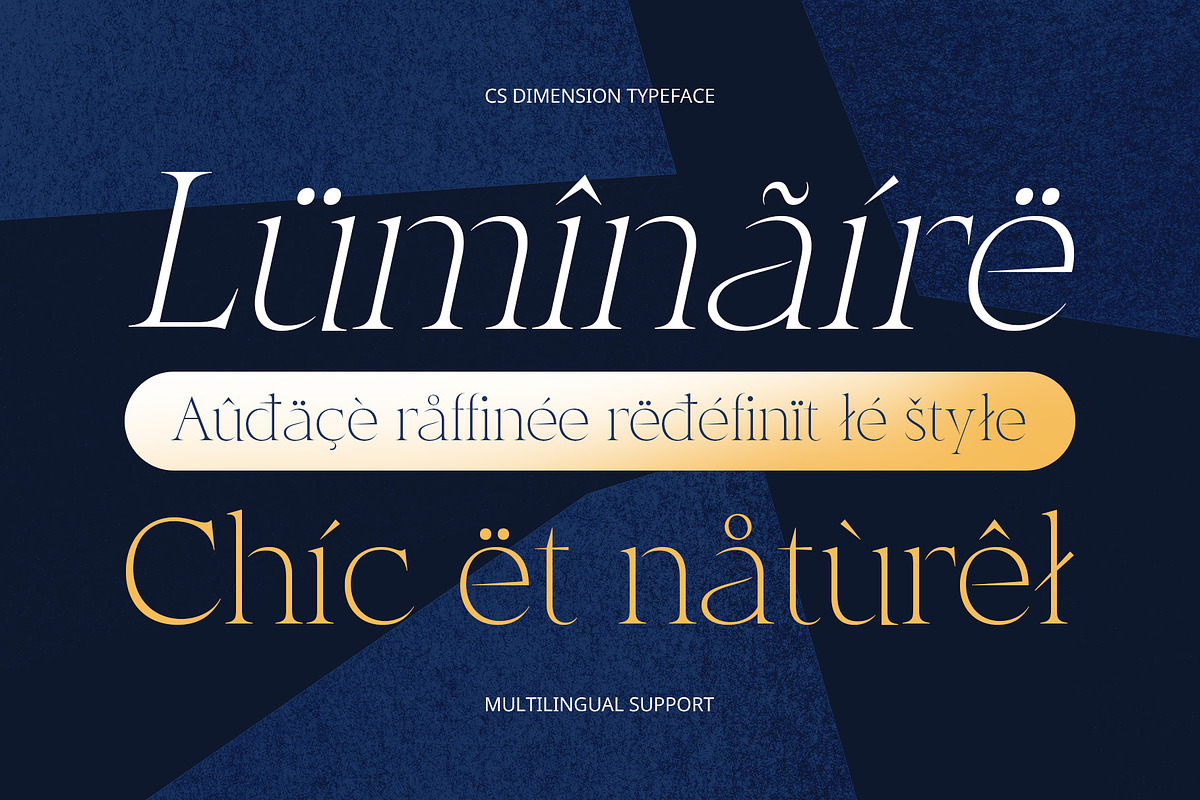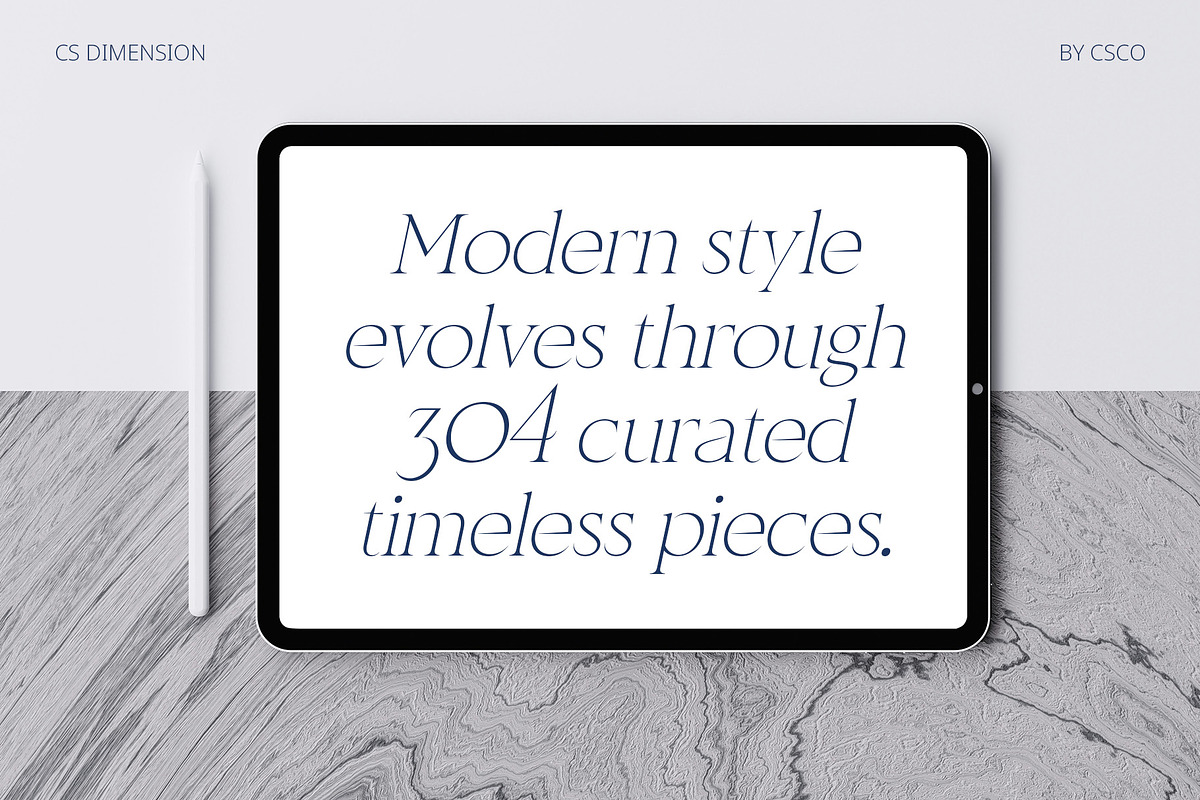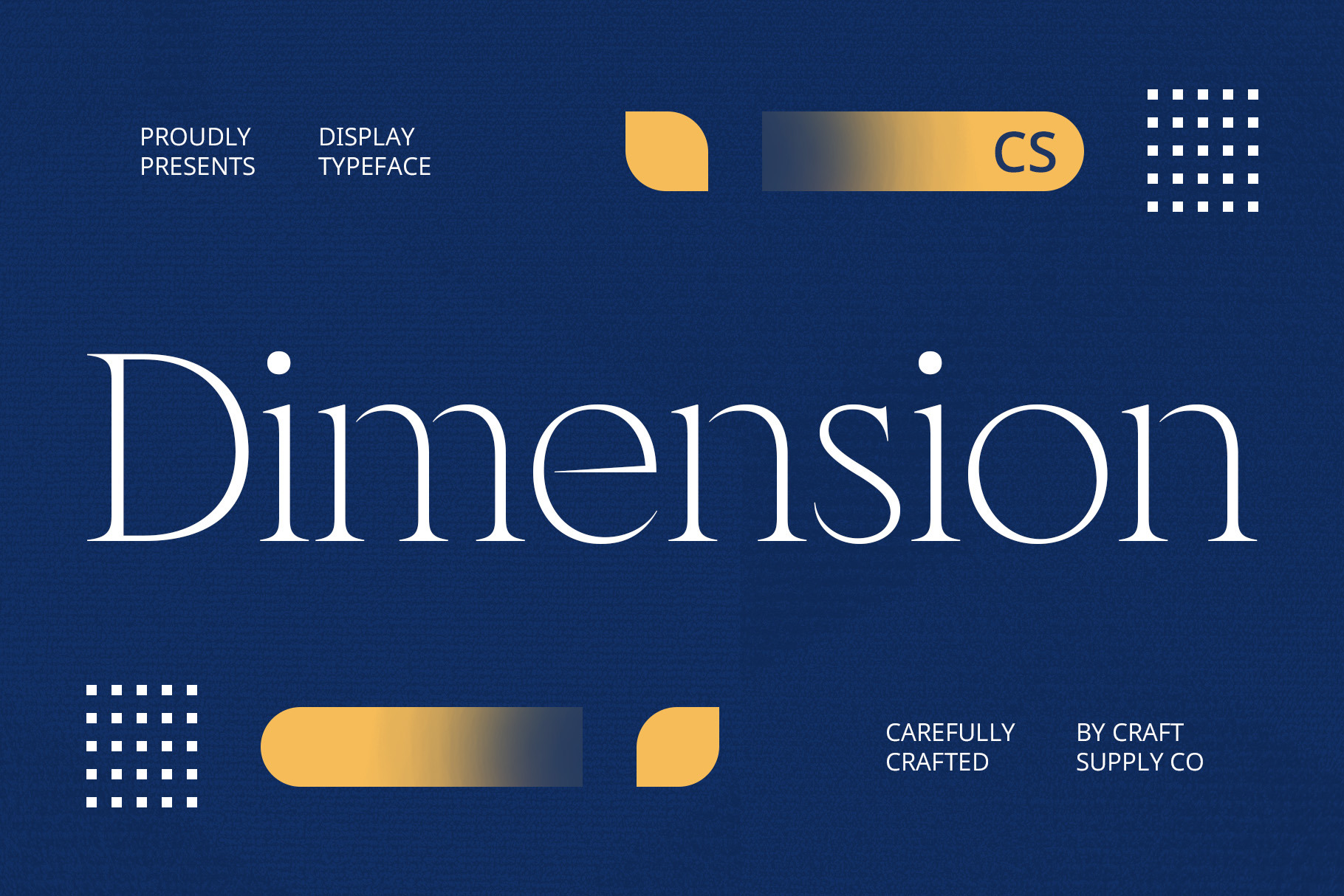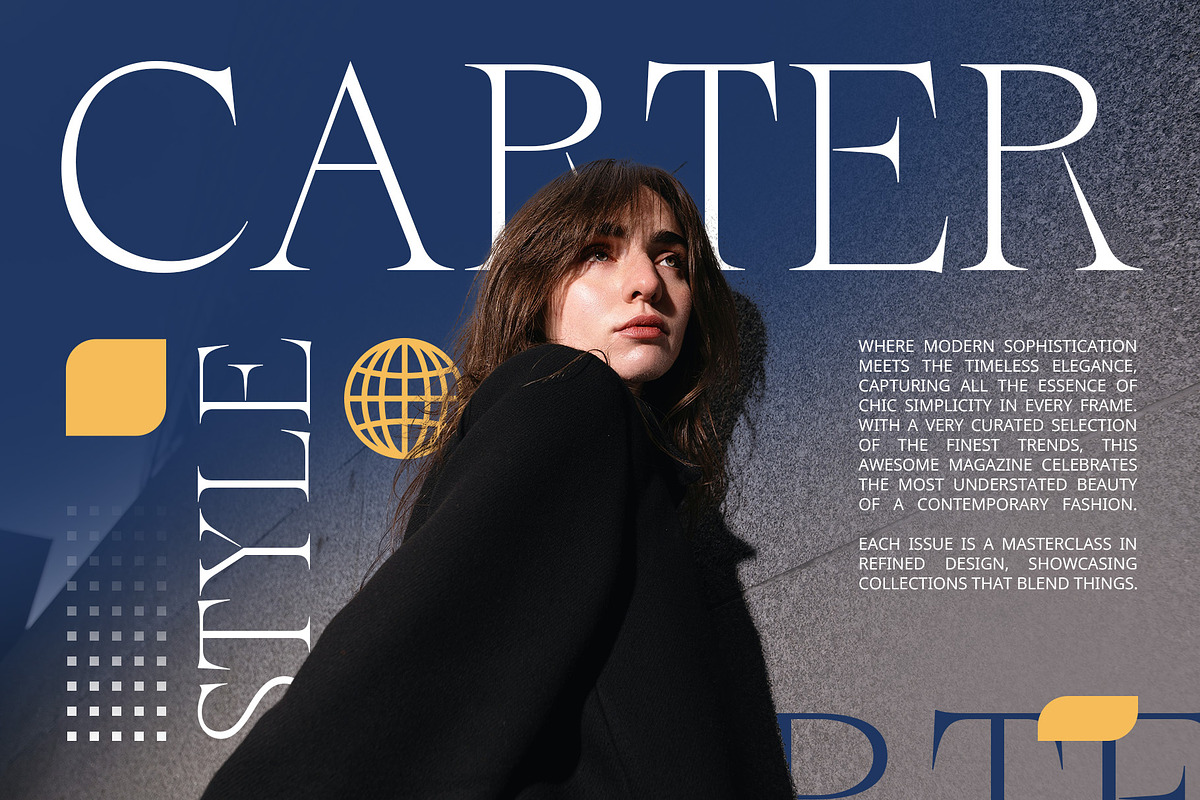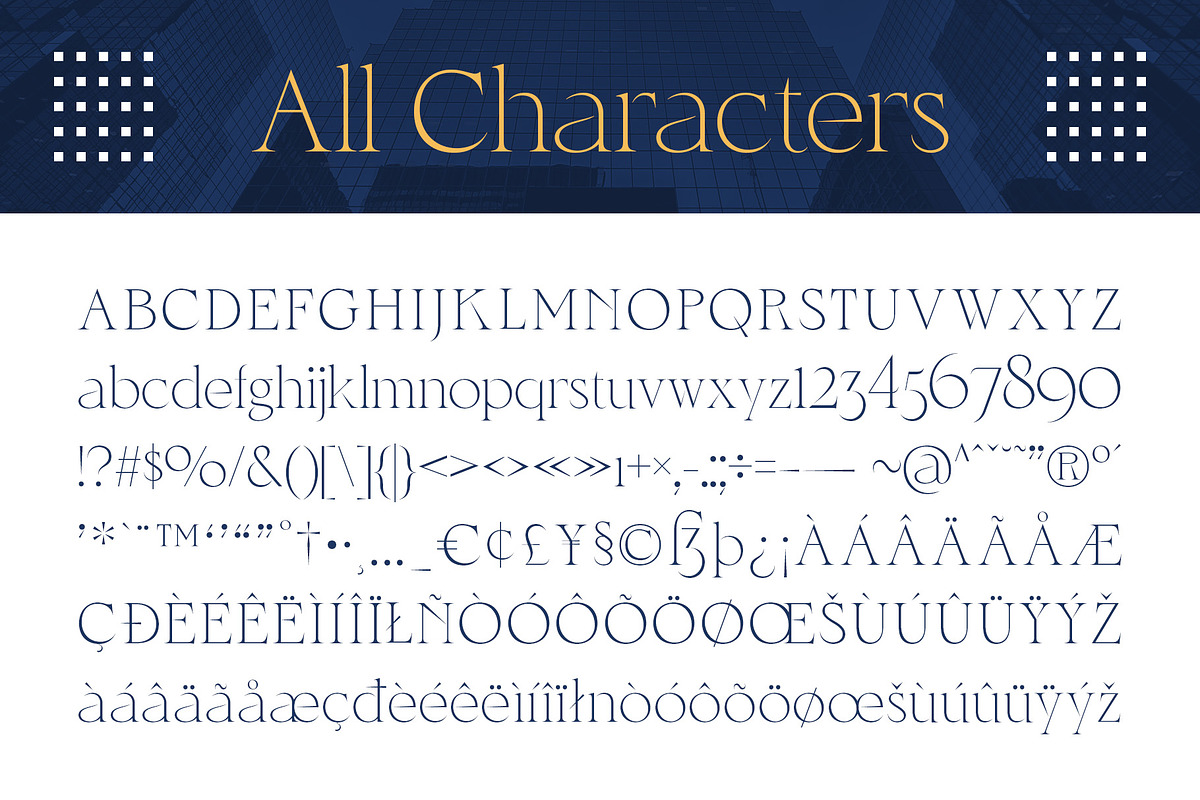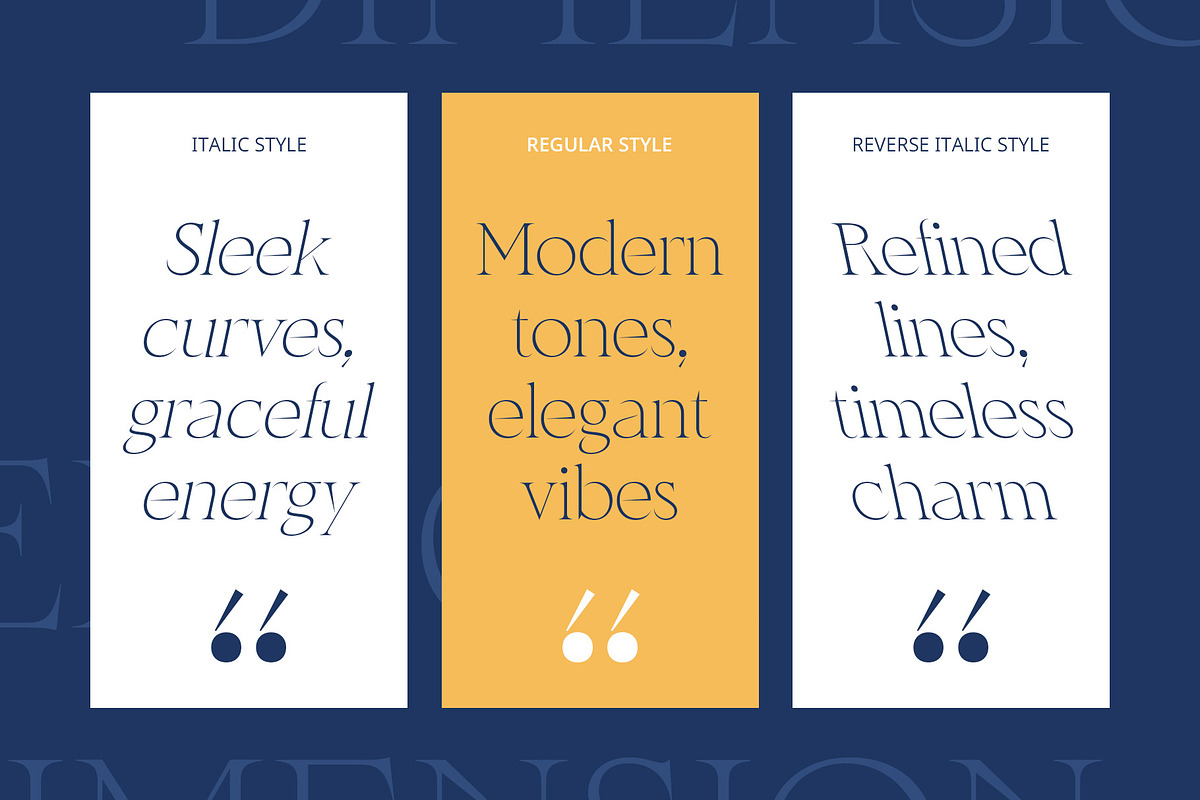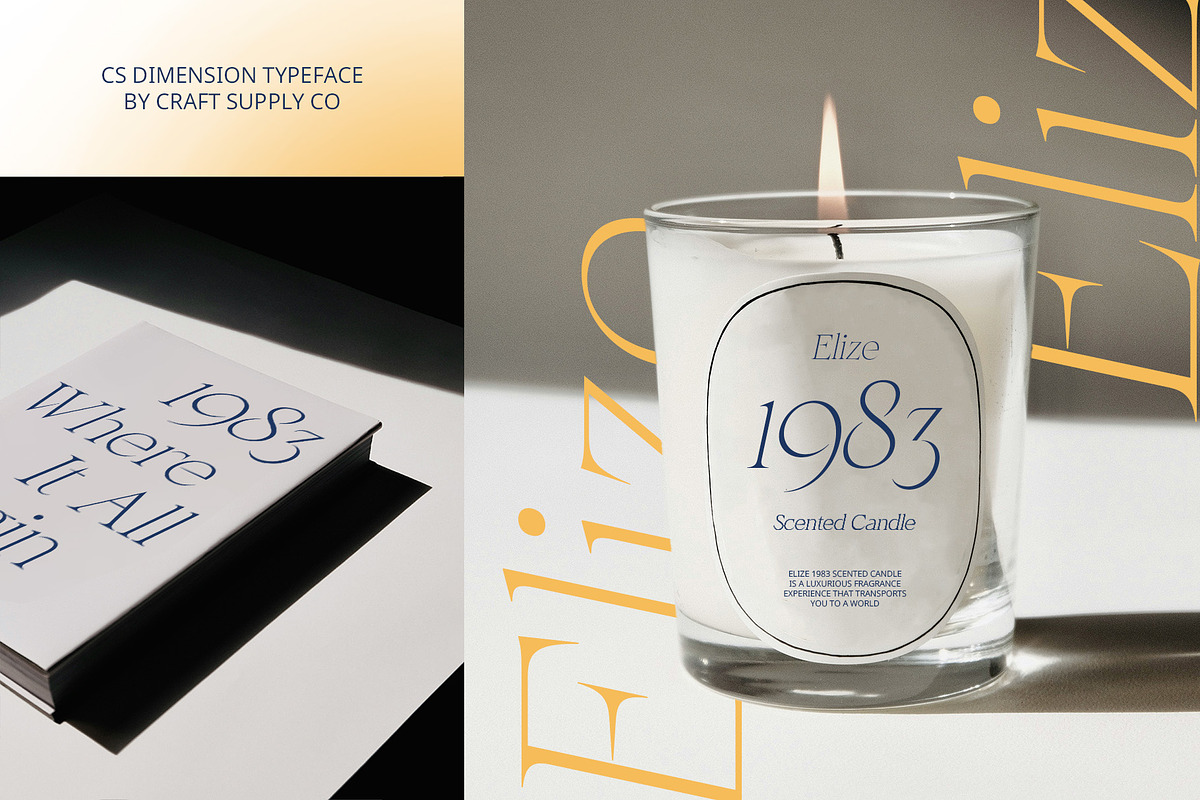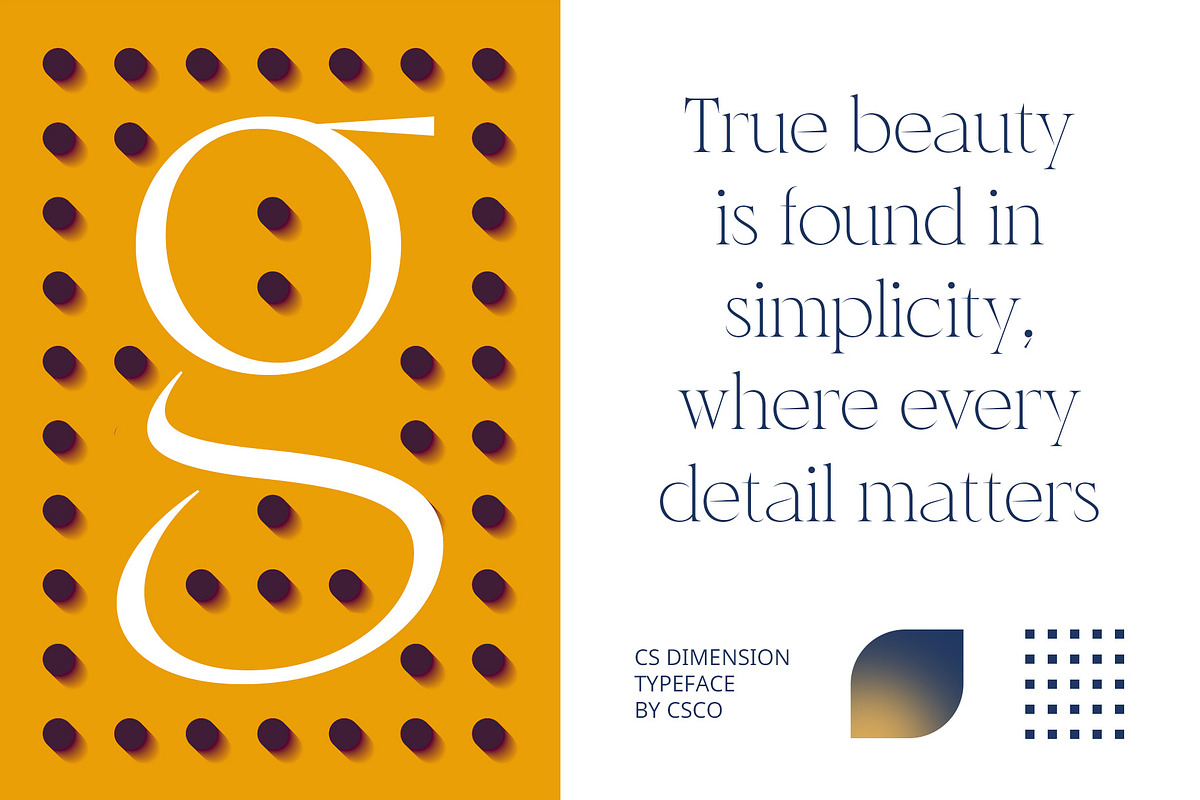
CS Dimension – Elegant Font
CS Dimension – Elegant Font: Refined Sophistication in Every Letter
Modern Serif Font with a Slim Design CS Dimension – Elegant Font is a modern serif typeface that exudes sophistication through its slim and minimalist design. Its subtle elegance makes it an ideal choice for projects that demand a refined, professional look, offering timeless beauty in every letterform.
Slim and Minimalist for Clean Aesthetics The slender proportions of CS Dimension bring a sense of understated luxury, creating a clean and streamlined aesthetic. Its modern serif design ensures readability while maintaining a high level of elegance, making it perfect for business cards, branding, and other professional applications.
Ideal for Business and Editorial Designs With its delicate and refined structure, CS Dimension is perfect for editorial designs, corporate branding, and more. Whether you’re creating sophisticated business collateral or high-end editorial layouts, this font provides the ideal balance of style and professionalism.
Elevates Contemporary Projects CS Dimension adds an air of sophistication to any design. Its minimalist yet elegant appeal helps elevate modern projects, making it an excellent choice for luxury brands, upscale advertising, and premium editorial content.
Timeless and Elegant for Versatile Use CS Dimension is designed to be versatile across a range of applications, from corporate branding to editorial publications. Its sleek and contemporary look ensures that it fits seamlessly into a wide array of modern design styles.
- CS Dimension Regular
- CS Dimension Italic
- CS Dimension Reverse Italic